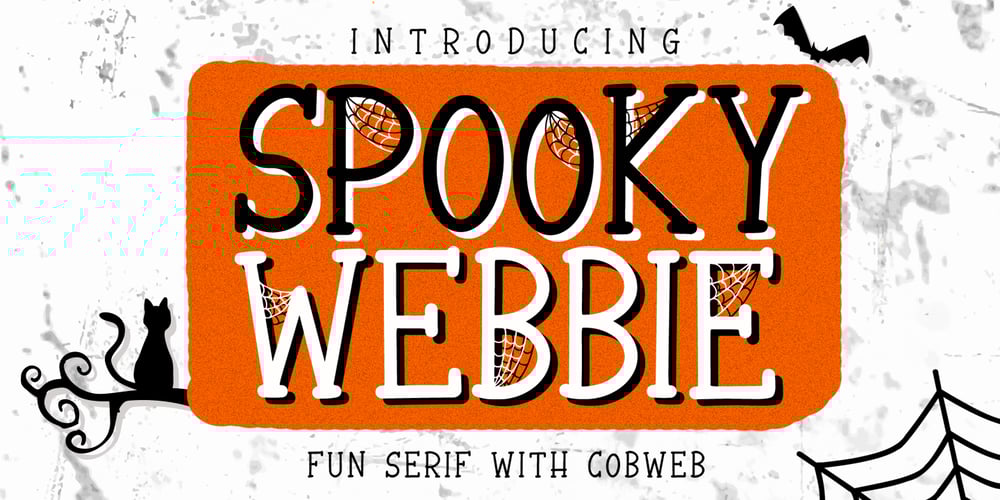
Spooky Webbie
Spooky Webbie font
Spooky Webbie Font Family was designed by Dimas Prasetyo and published by DM Studio. Spooky Webbie contains 1 styles and family package options. Spooky Webbie Font is a playful and eerie typeface that brings the Halloween spirit to your designs with its fun serif style adorned with cobwebs. Perfect for Halloween invitations, spooky-themed party decor, haunted house posters, and eerie branding, this font adds a touch of frightful fun to your creative projects.Features: Playful and Eerie Design: The Spooky Webbie Font features a fun serif style intertwined with cobwebs, creating a spooky yet playful aesthetic perfect for Halloween and other eerie occasions. Versatile Application: Ideal for Halloween invitations, party decor, haunted house posters, spooky branding, and more. This font adds a chillingly fun element to any project. Uppercase and Lowercase Letters: The font includes both uppercase and lowercase letters, providing flexibility and creative freedom in your designs. Ligatures and Special Characters: The Spooky Webbie Font offers a selection of ligatures and special characters that enhance the spooky vibe of your text. These special characters create unique connections between letters and alternate forms, allowing you to create visually appealing and eerie typography. Punctuation and Symbols: In addition to the alphabet, the Spooky Webbie Font includes a comprehensive set of punctuation marks, numerals, and common symbols. This ensures consistency and ease of use when incorporating the font into your design projects. Easy Installation and Use: Installing and utilizing the Spooky Webbie Font is hassle-free. It is compatible with both Windows and Mac operating systems and seamlessly integrates into popular design software such as Adobe Photoshop, Illustrator, and InDesign. This ensures a smooth and efficient design workflow.